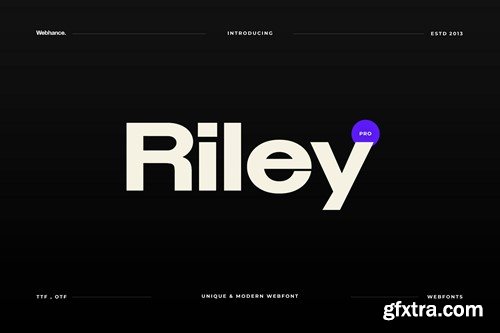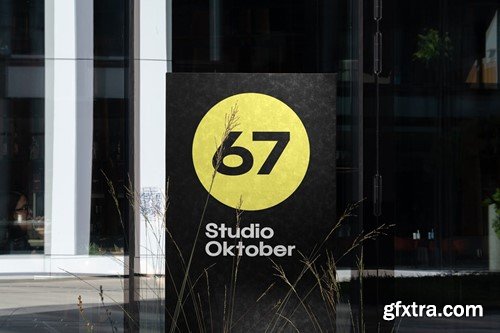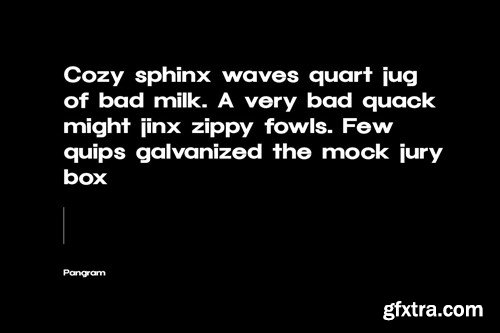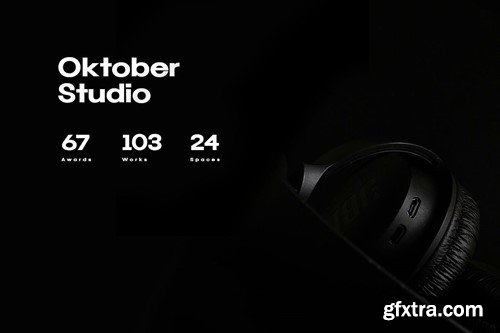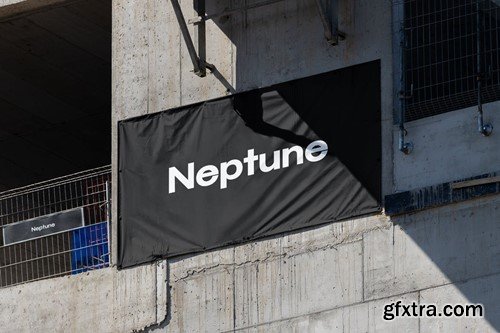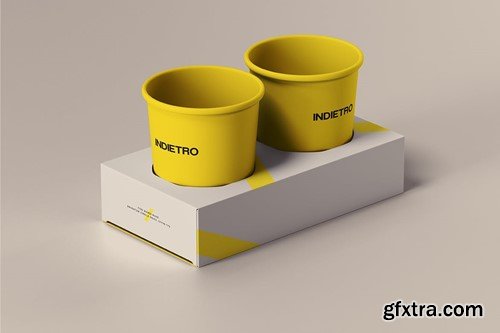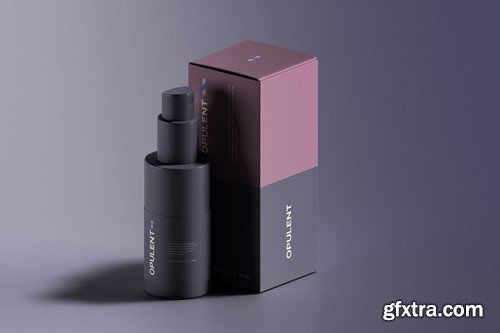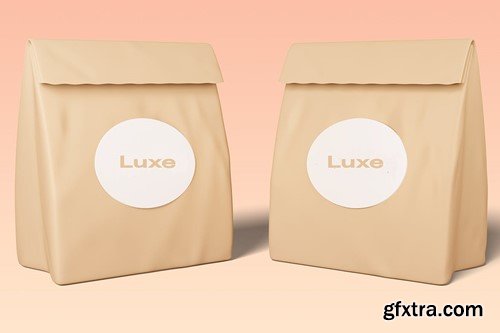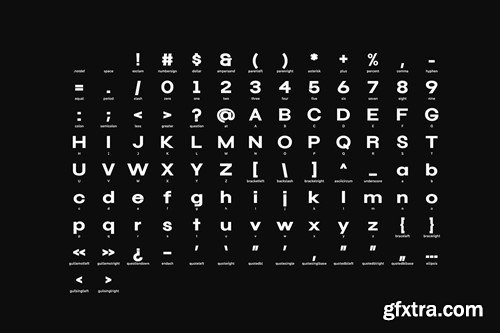
瑞利 - 现代无衬线字体家族 3KQFU5D
Riley - Modern Sans-Serif Font family 3KQFU5D
The Riley font family is a contemporary sans-serif typeface that offers a sleek and minimalist design suitable for various design projects. With clean lines and balanced proportions, Riley delivers a modern aesthetic while ensuring readability across different mediums. This font can enhance your designs, maintaining a high-quality look and feel that elevates them to world-class standards.
• Uppercase letters
• lowercase letters
• Numbers
• Punctuations
Font Designed and Crafted by Webhance Studio.